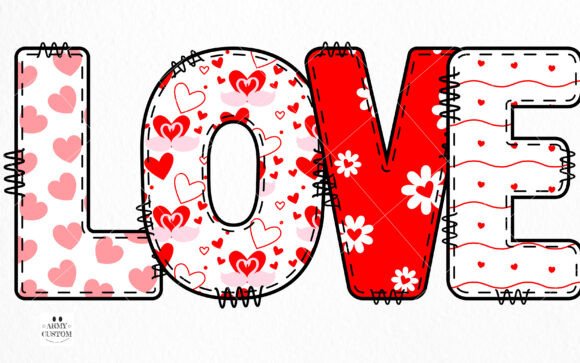
Love Valentine's Bundle Font
Love Valentine’s Bundle Font
Experience the essence of romance with the captivating “No.21 Valentine’s Army Bundle” font. Each line of this unique doodle font weaves a romantic narrative, creating a stunning tool for communicating your heartfelt sentiments on the day committed to love. Richly adorned with intricate heart patterns in each letter, this enchanting font reaches right into the core of your emotions. Perfect for crafting poignant messages, designs, and creations on Valentine’s Day, it masterfully represents the universal language of love.